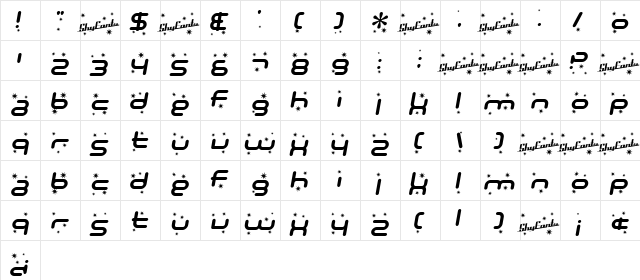
SF Technodelight Bold Italic
Design Context for SF Technodelight Typeface
SF Technodelight channels digital-age aesthetics through its sharp, structured letterforms — ideal for brands that want to signal innovation. Its italic angle brings a sense of urgency and motion to the letterforms. The heavy weight commands attention and anchors typographic hierarchies.